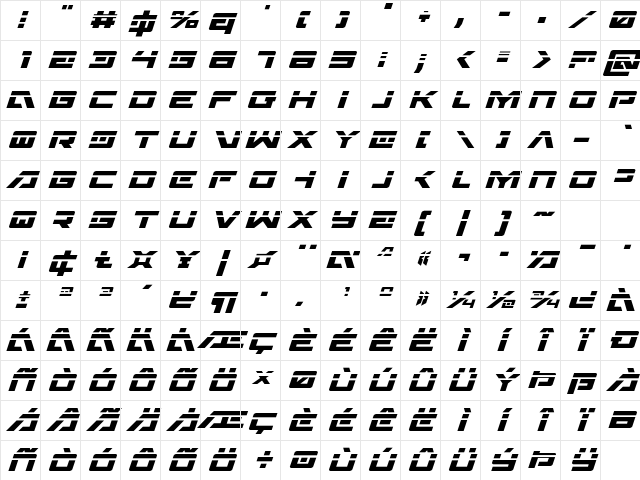
Complete Wildcard Laser Italic glyph index. Displaying only characters natively supported by Wildcard Laser Italic font.
Wildcard Laser is a composed and adaptable typeface that performs quietly and consistently across a wide range of design contexts. The slanted form adds forward momentum and visual energy.